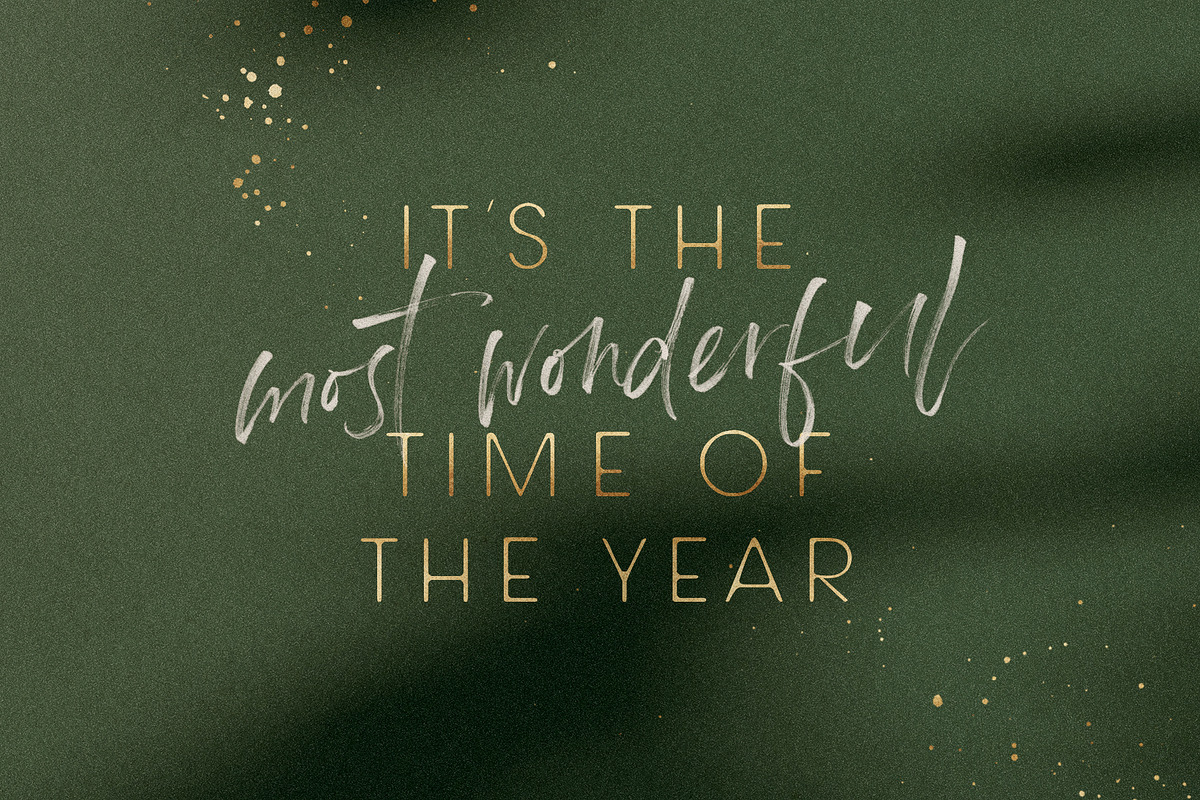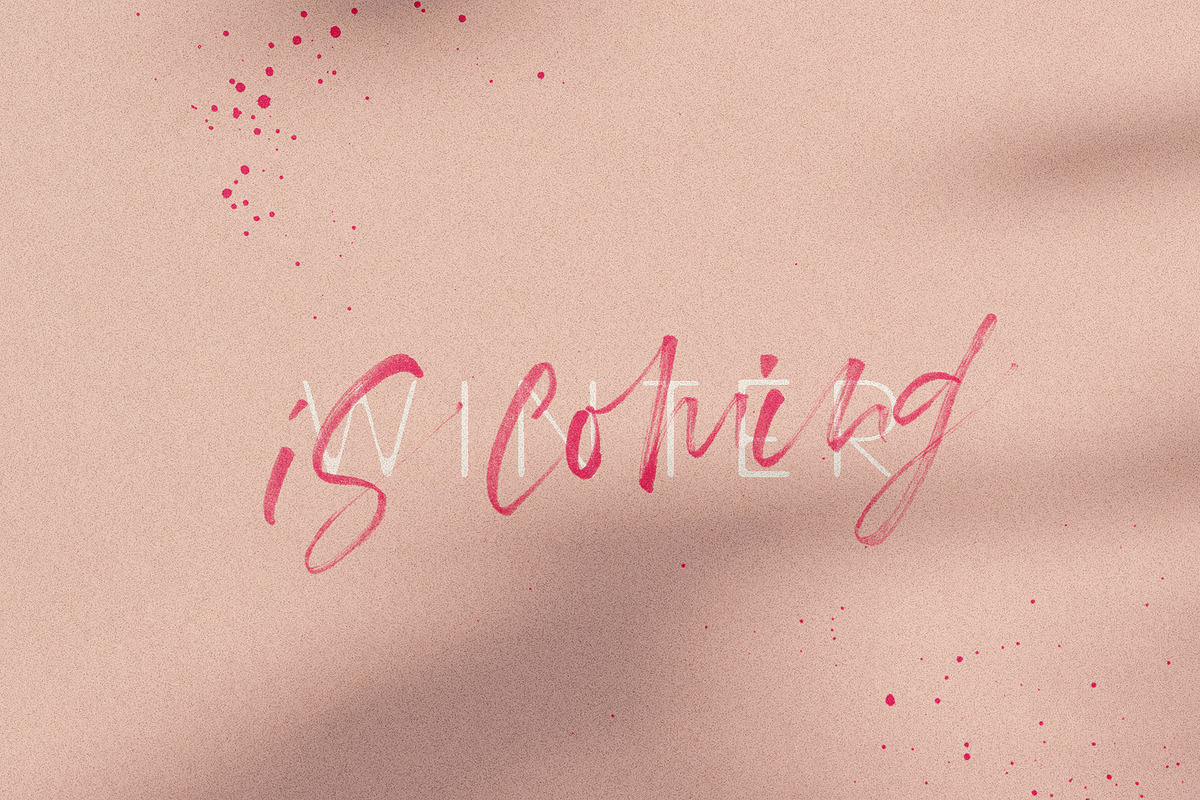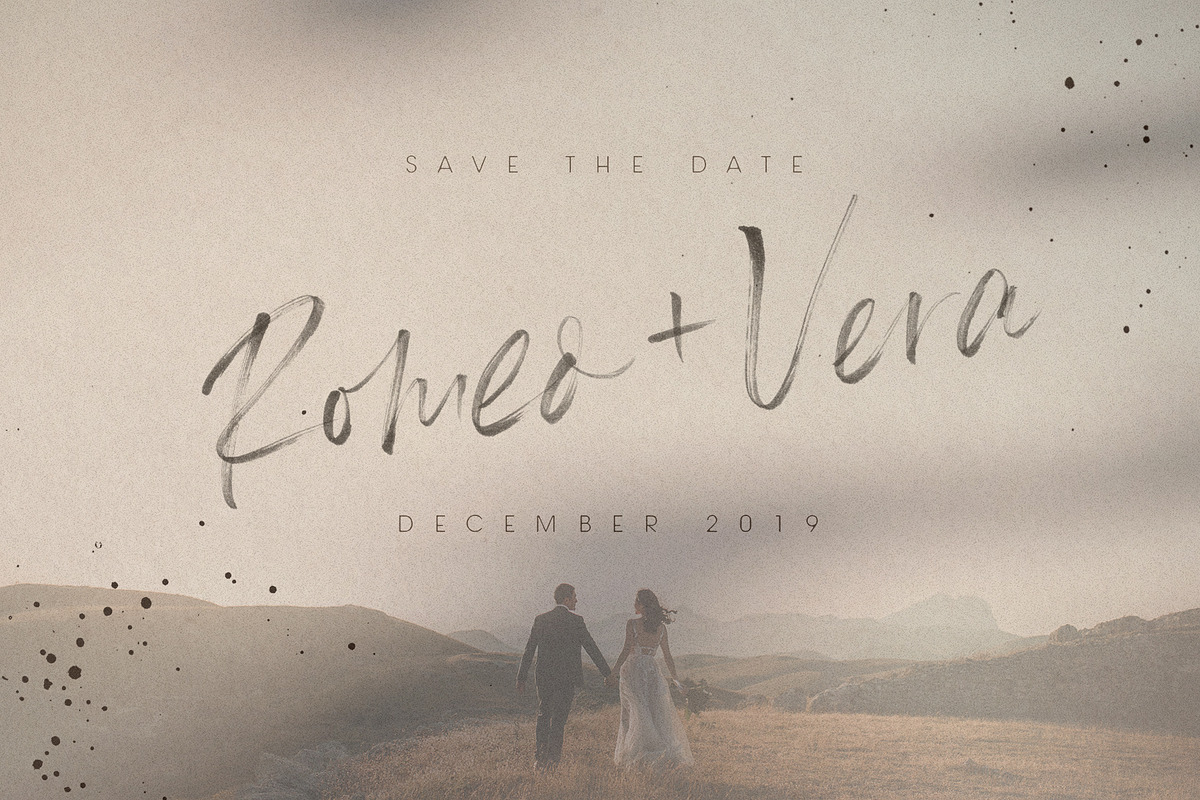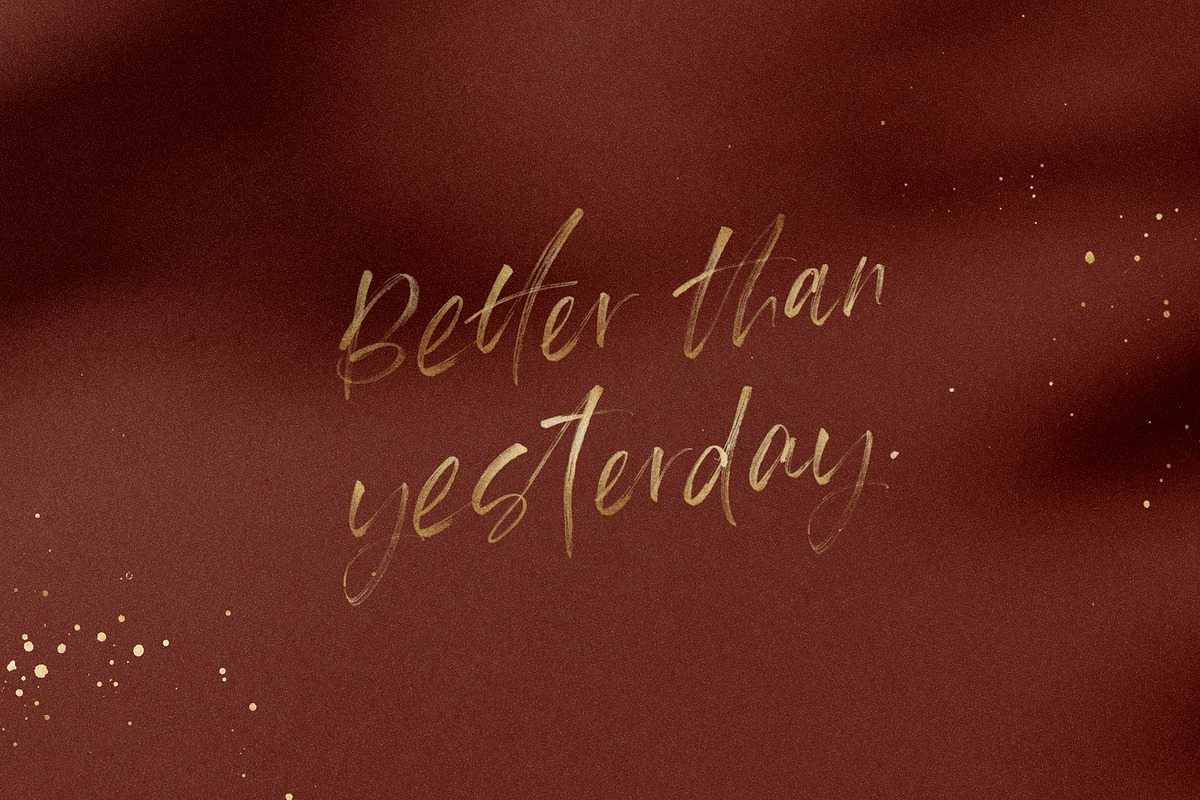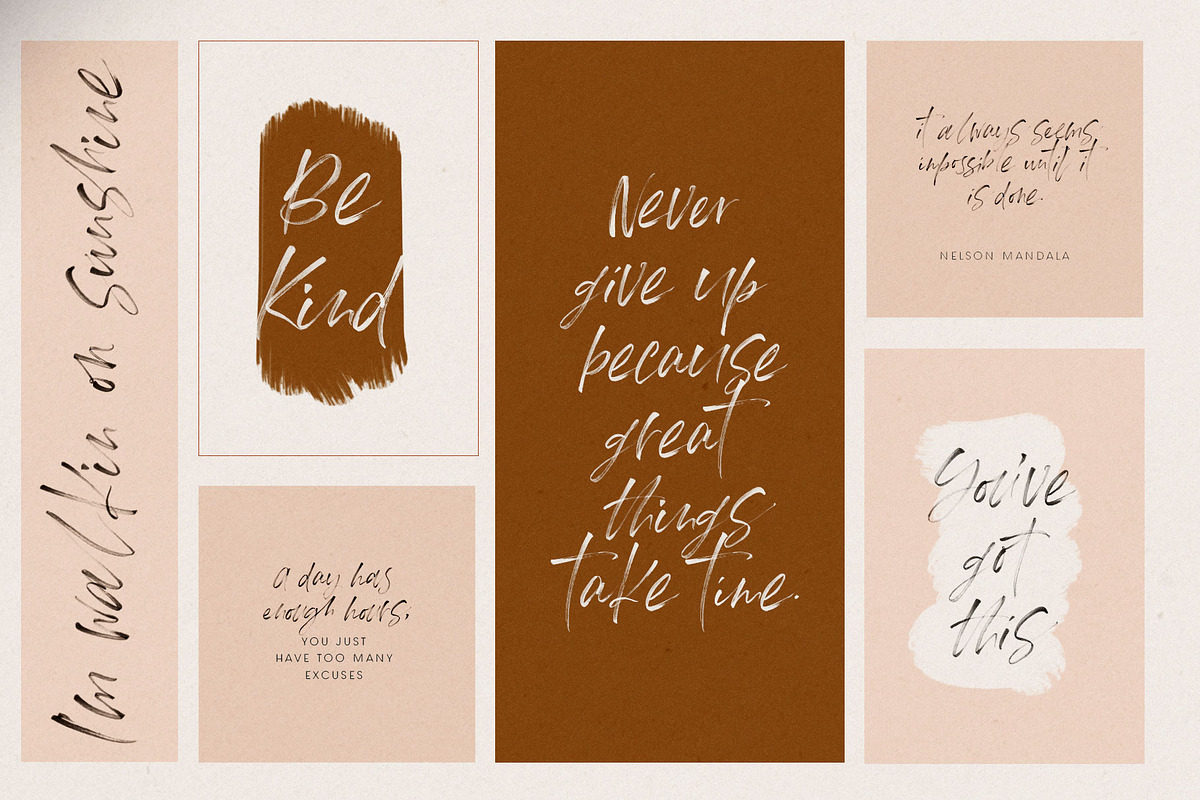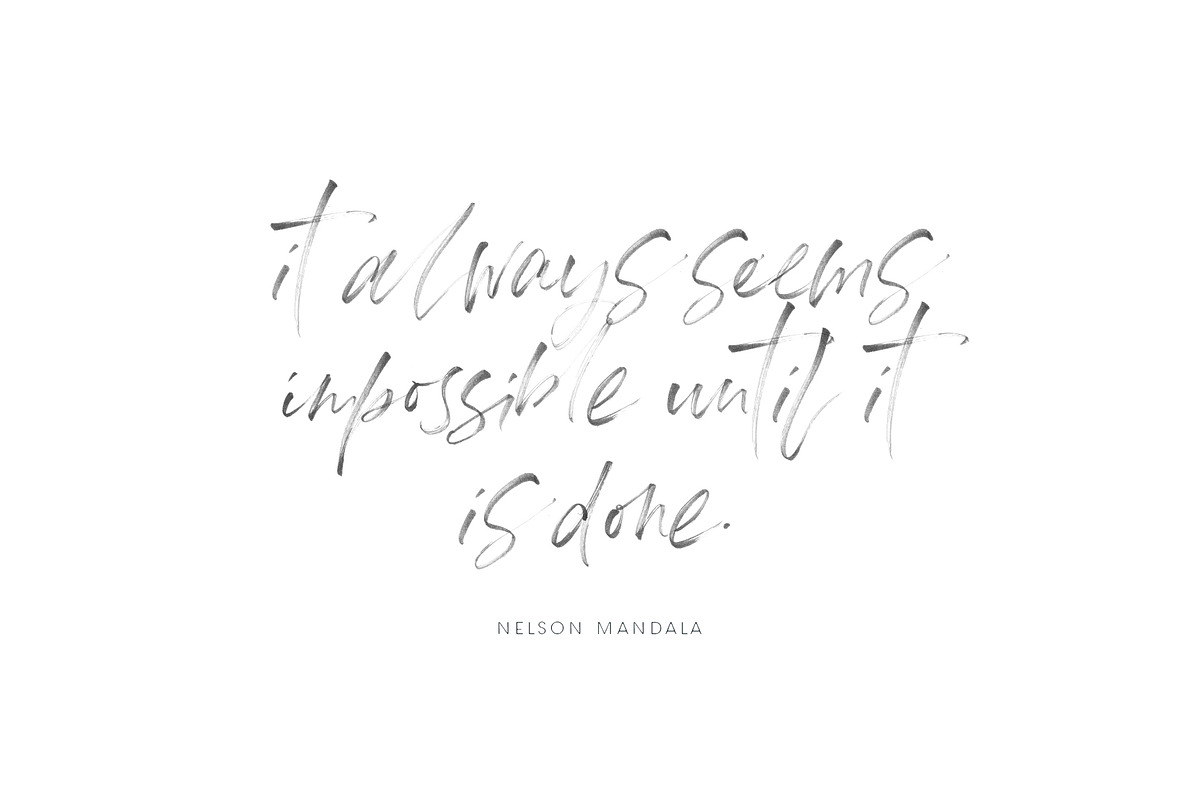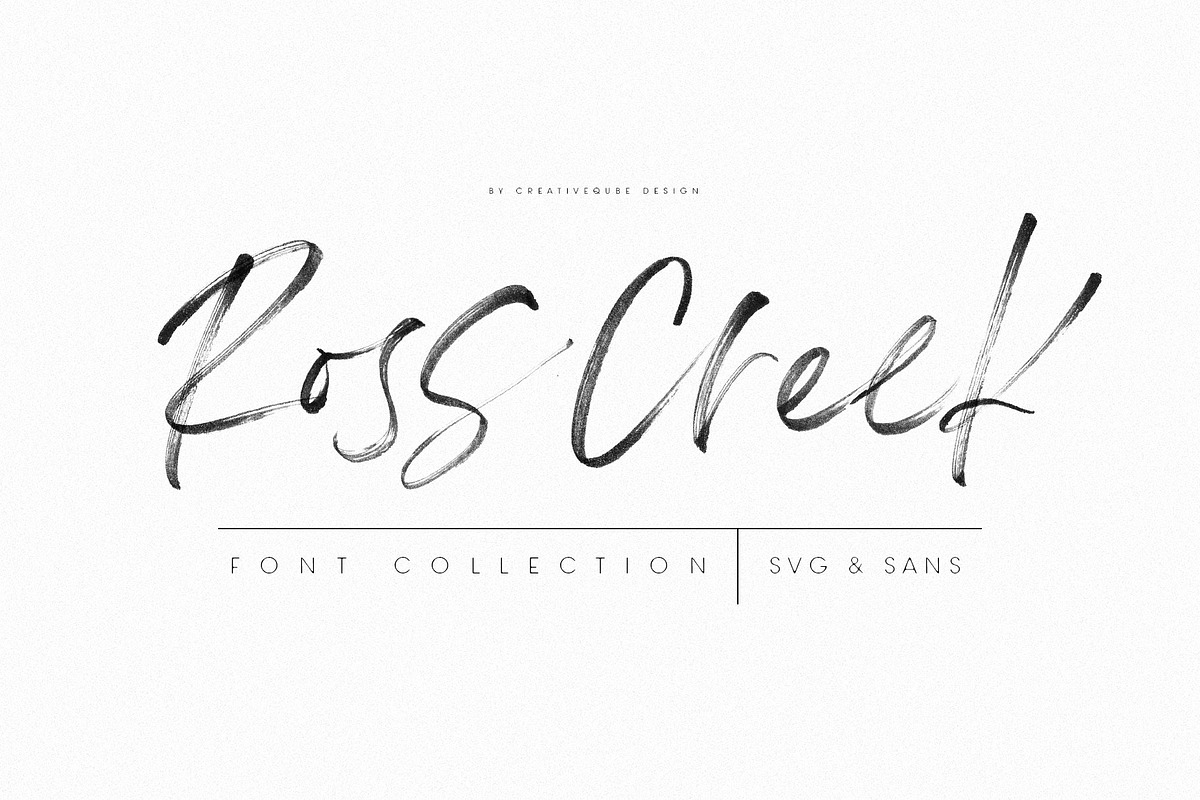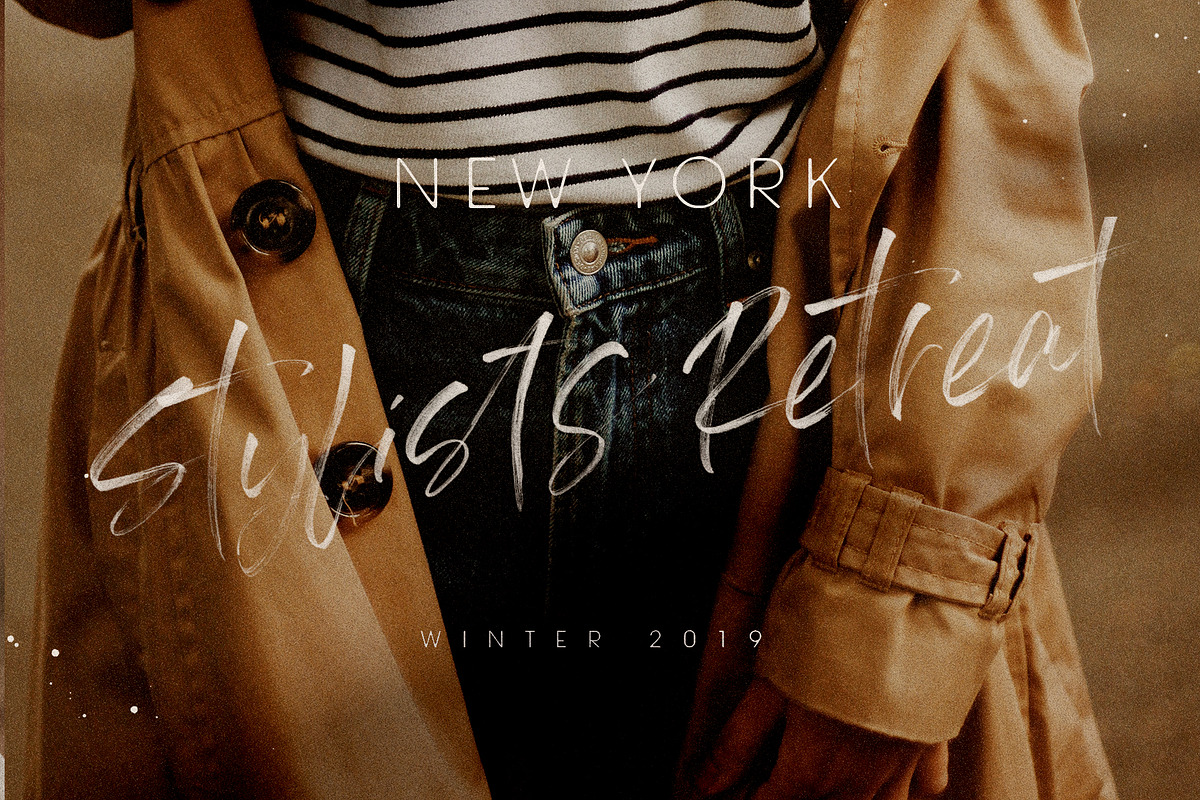
Ross Creek SVG & Sans Font Duo
Ross Creek SVG + Sans Font duo is a gorgeous textured hand brushed SVG font and a modern smooth sans that makes for stunning logos, quotes, wedding invites, blog posts, Instagram, and more!
They pair beautifully together in all kinds of applications. The sans looks gorgeous with tracking set at 300, as well as where it's normal setting at zero.
Ross Creek Transparent SVG includes lots of ligatures to make everything look perfectly natural and hand written, and there is a normal Vector font for those applications that cannot use SVG Color fonts.
Ross Creek Sans is a sans serif font that just goes so well with the script. It is smooth and rounded with a very thin, modern look.
Ross Creek SVG & Sans Font Duo by Creativeqube Design fits naturally into Branding, posters, packaging, typography.